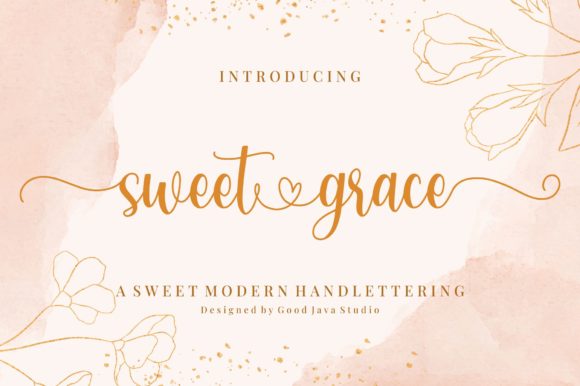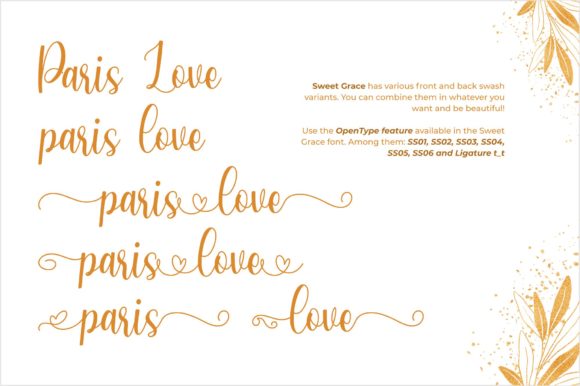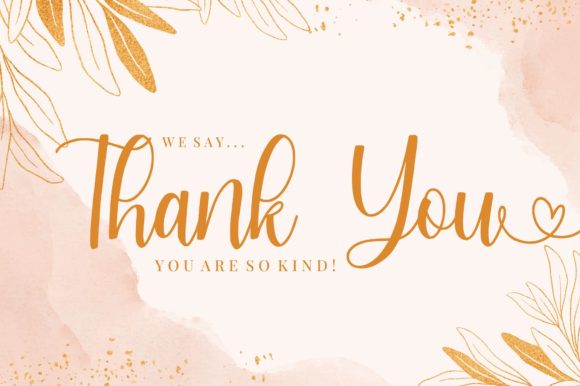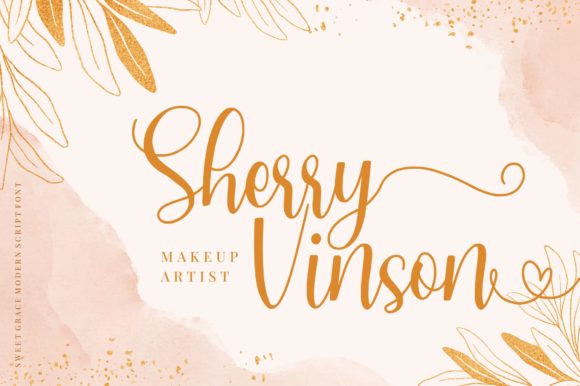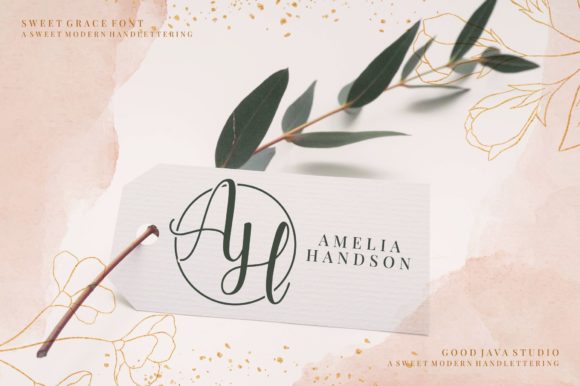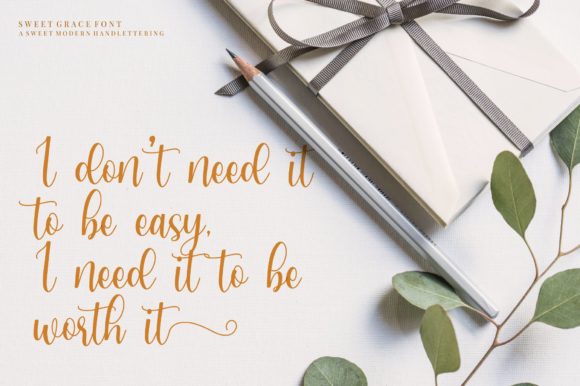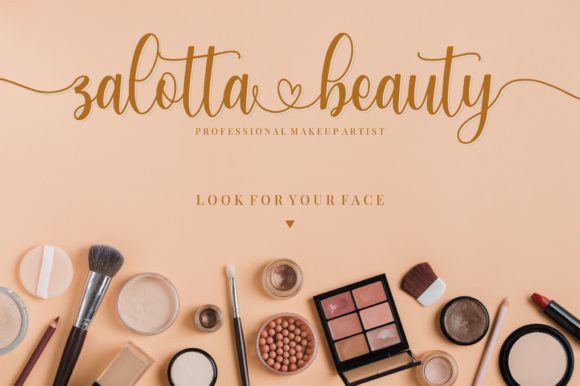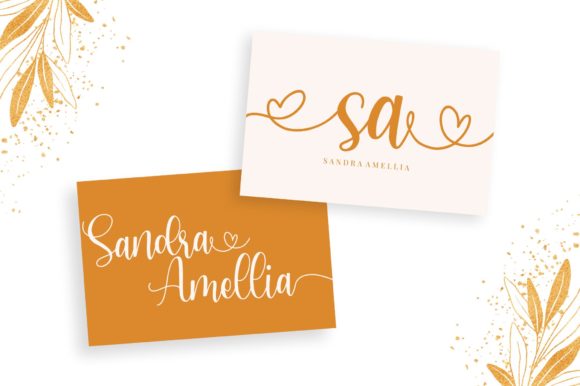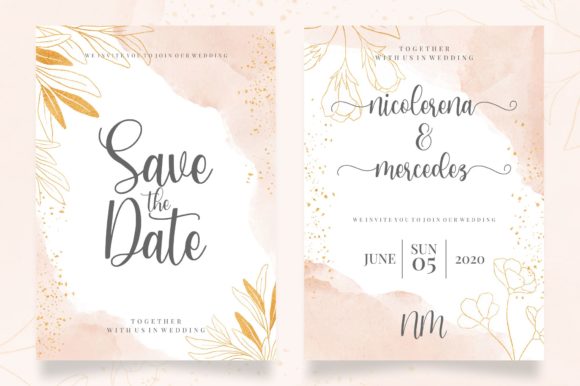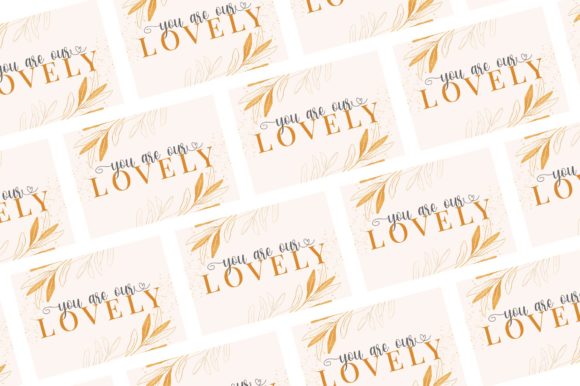
Sweet Grace Font
About Sweet Grace Font
Sweet Grace feels equally charming and elegant. It looks stunning on wedding invitations, thank you cards, quotes, greeting cards, logos, business cards and every other design which needs a handwritten touch.